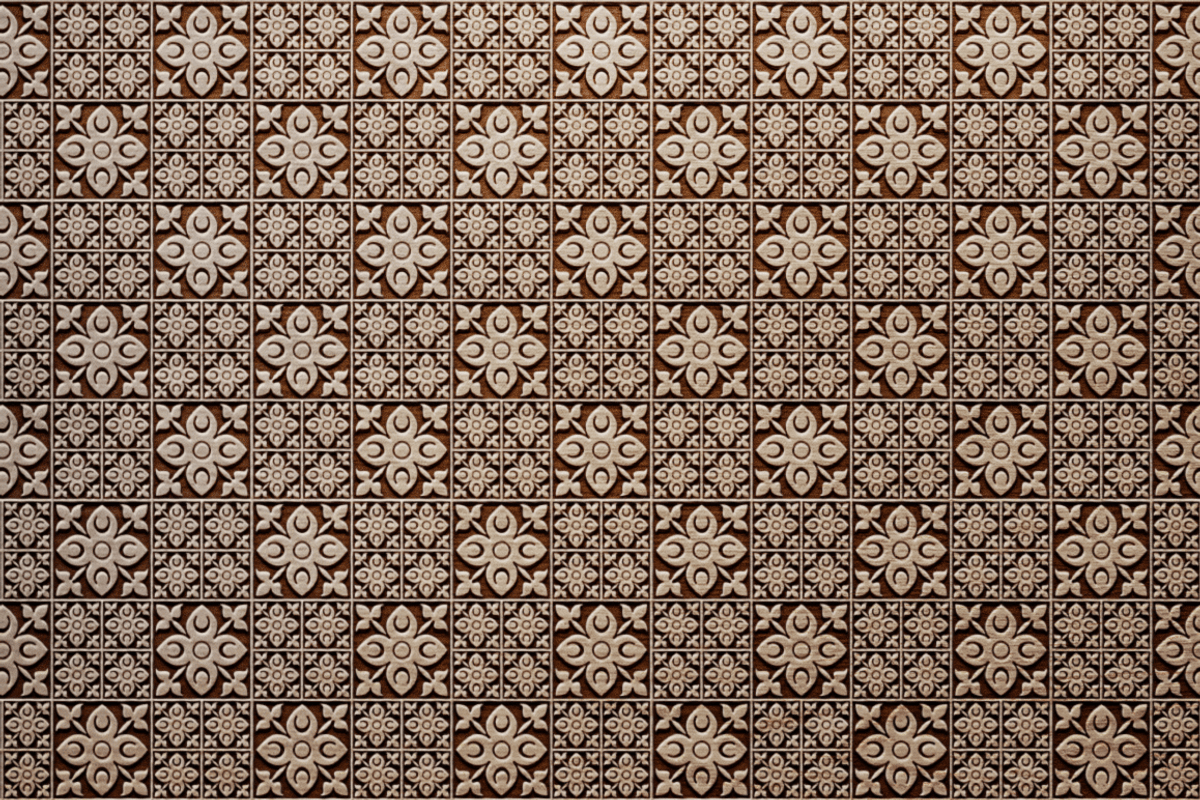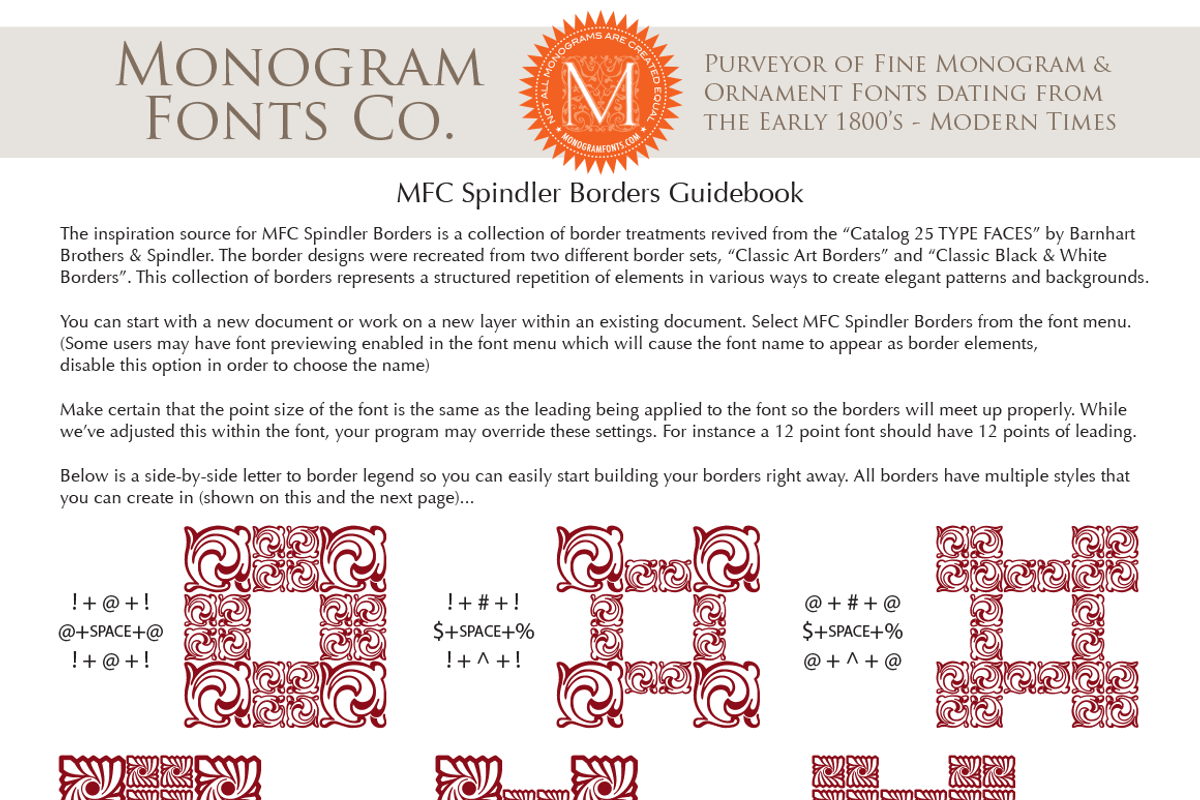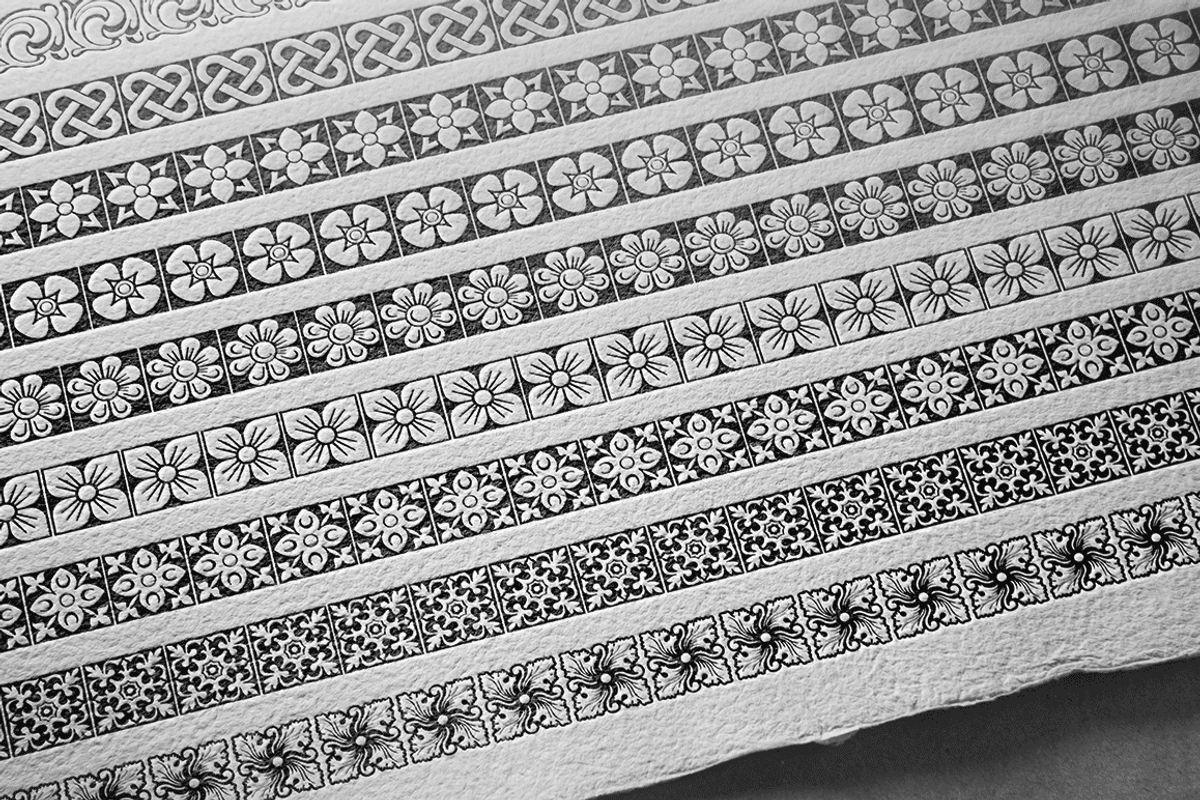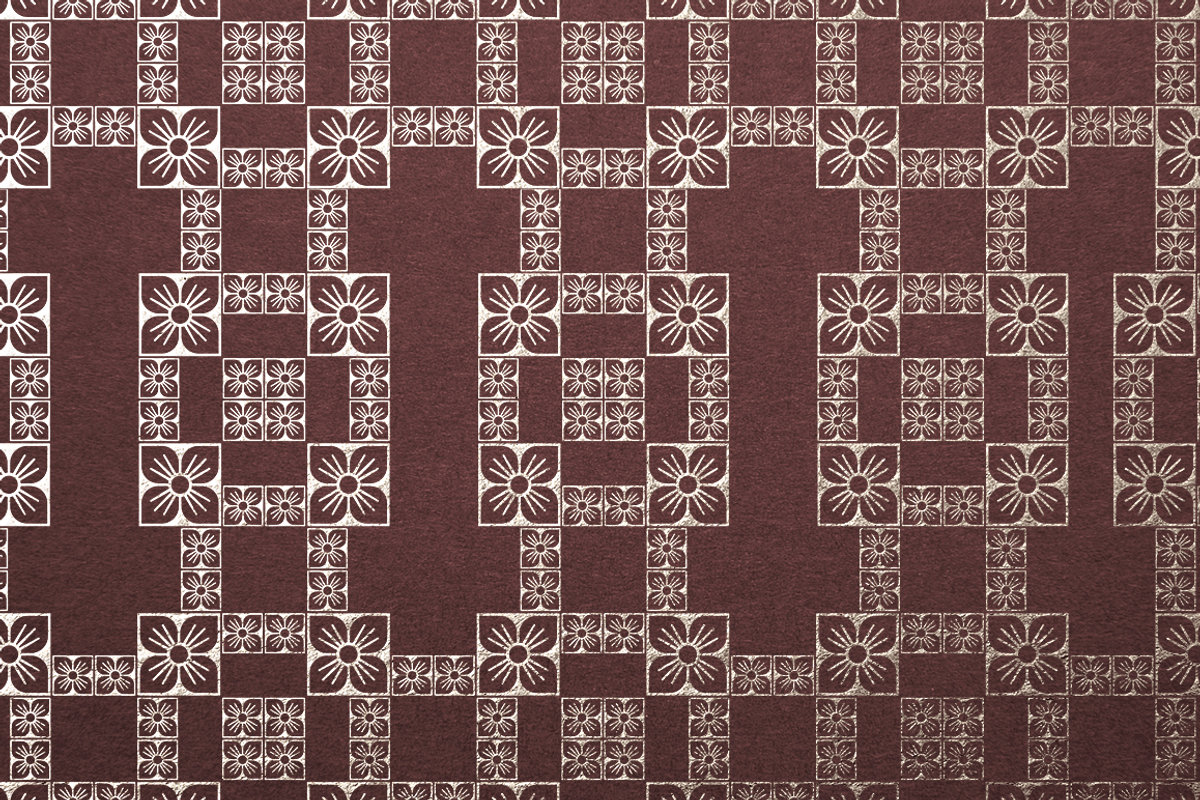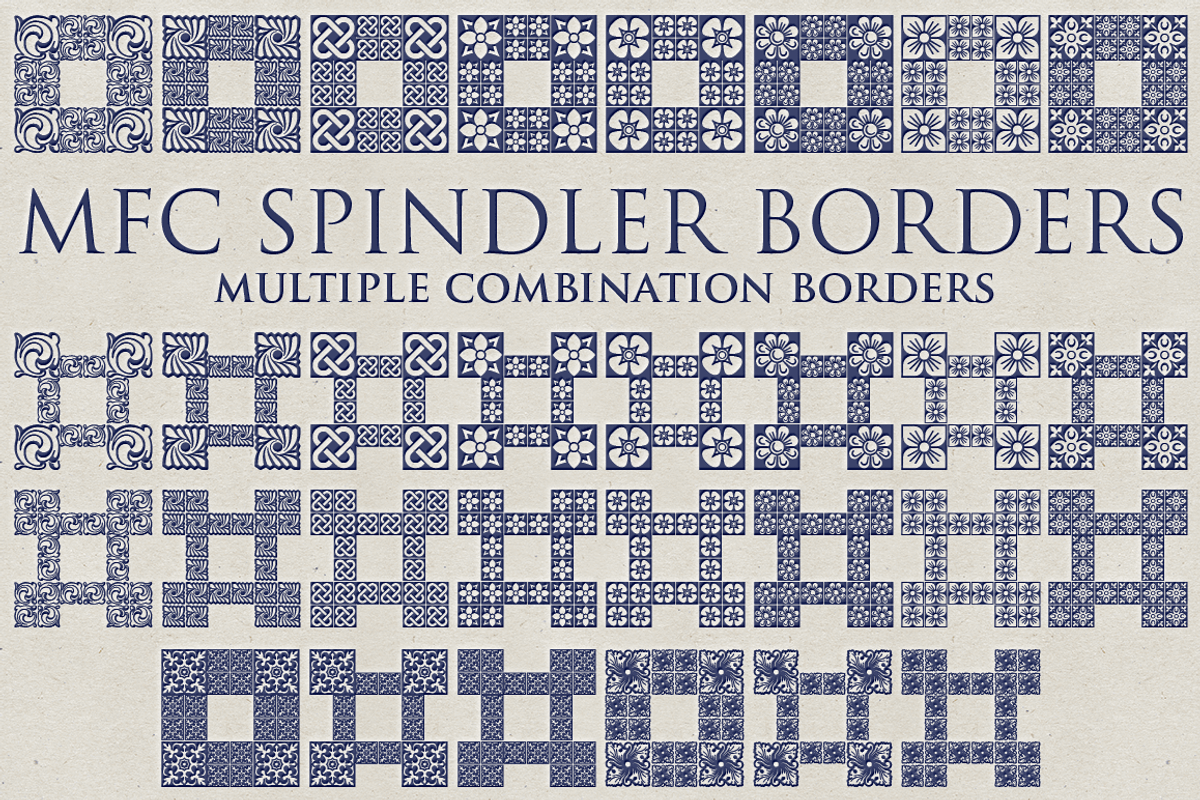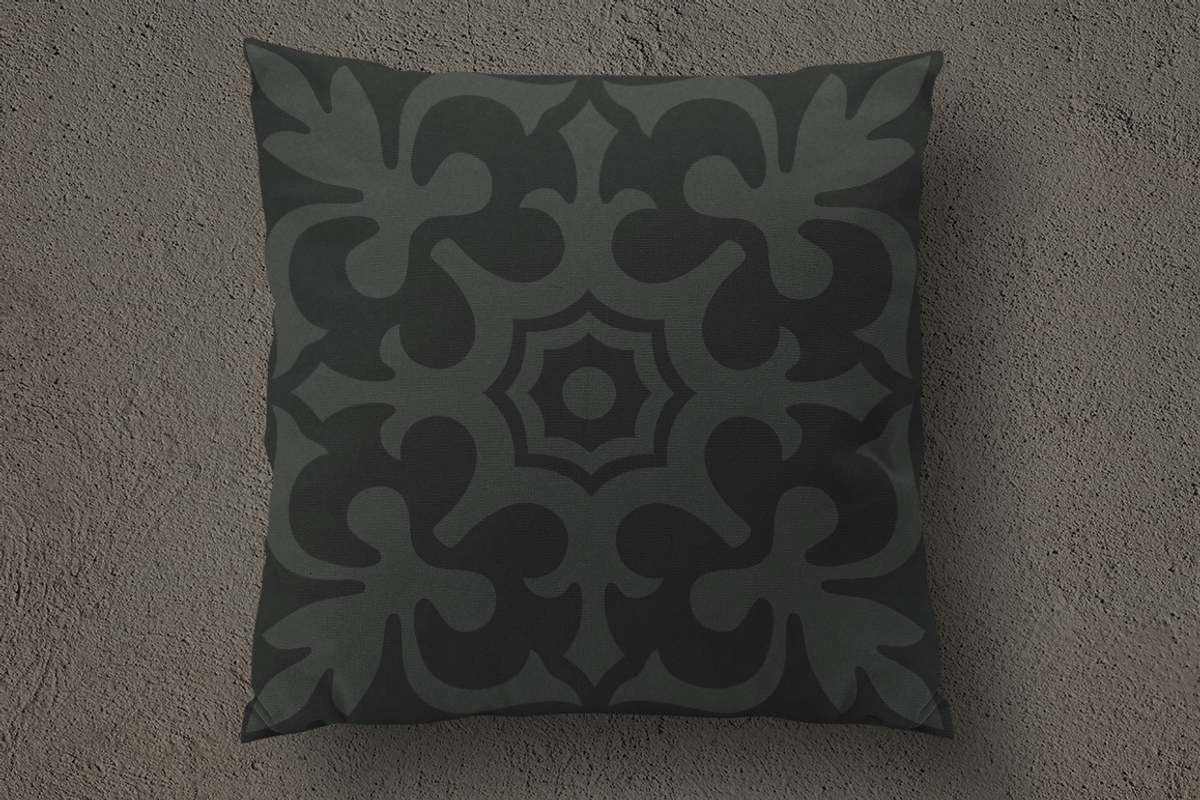
MFC Spindler Borders
MFC Spindler Borders by Monogram Fonts Co. is a font selected for branding, posters, packaging, typography.
Why MFC Spindler Borders is worth a look
MFC Spindler Borders by Monogram Fonts Co. fits naturally into Branding, posters, packaging, typography.